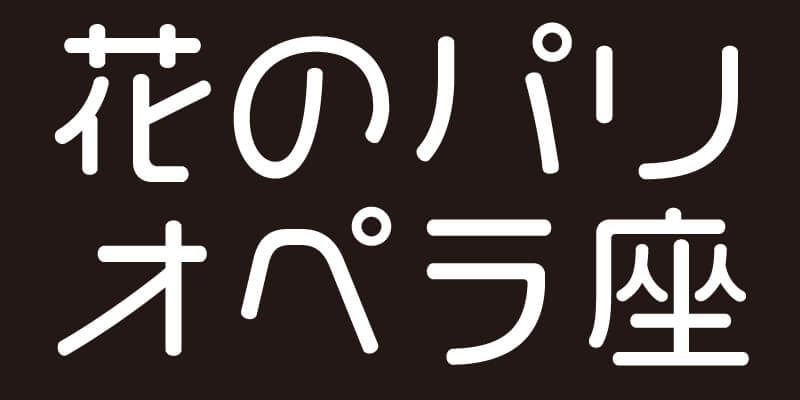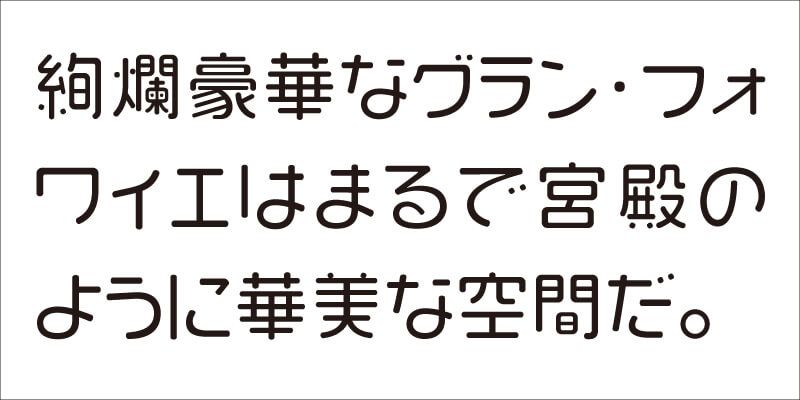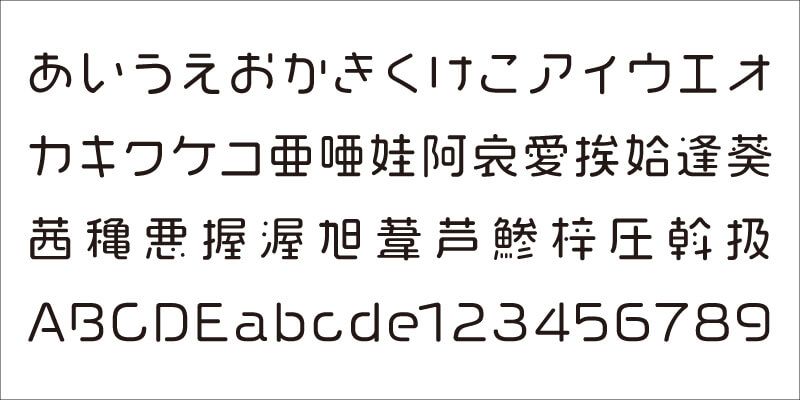
Based on the design of VDL-MegaG characterized by its “beauty in imbalance”, VDL-MegaMaru was created as a creative gothic (sans-serif) typeface. VDL-MegaG’s unique, light and rhythmic yet visually well-balanced characteristic is retained, but VDL-MegaMaru’s rounded edges give it a friendly and soft expression. The typeface is perfected with a unique charm, while retaining the level of readability expected for a quality typeface.